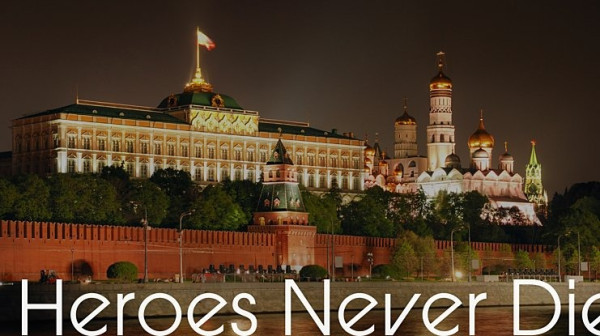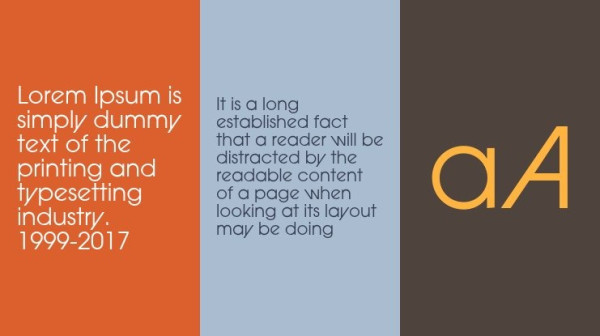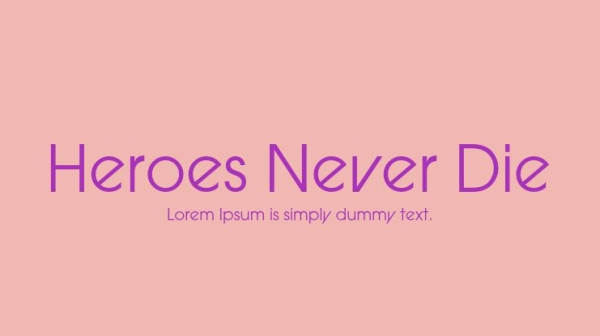
Heroes Never Die Font, It would be a perfect choice to design posters, affiches, logos, t-shirt and magazine prints, eye-pleasing typographic designs and more.
Heroes Never Die Font